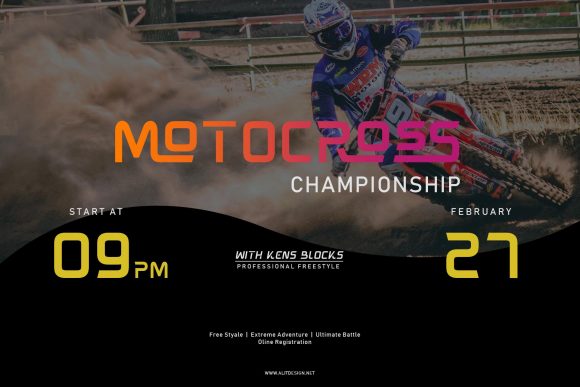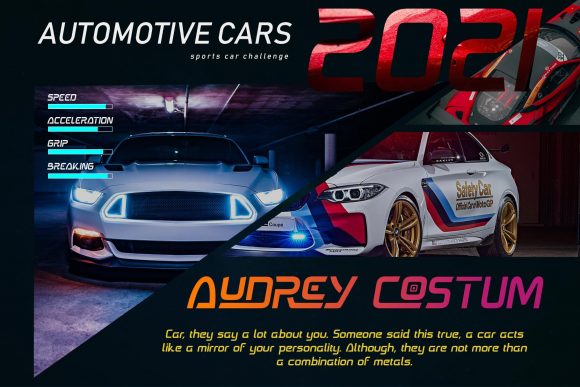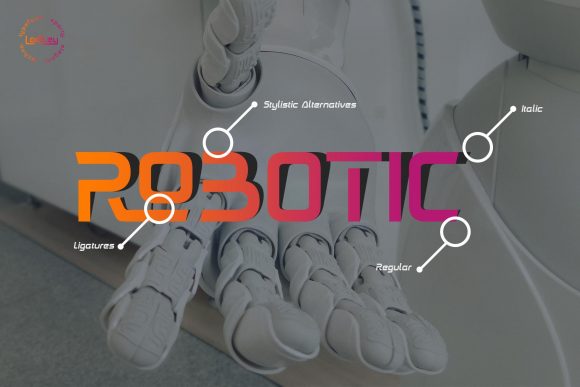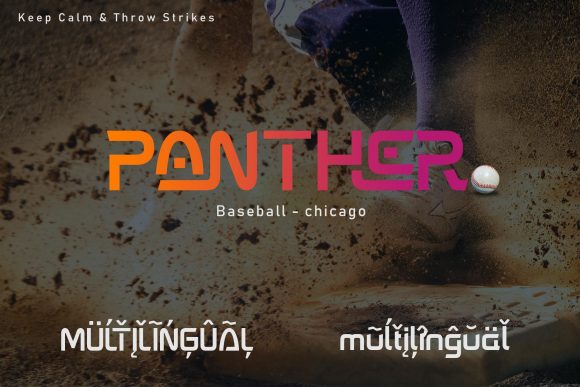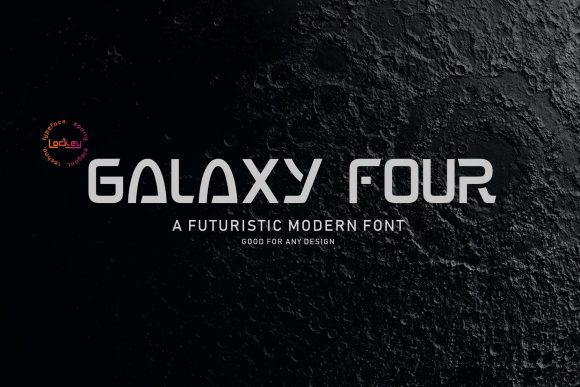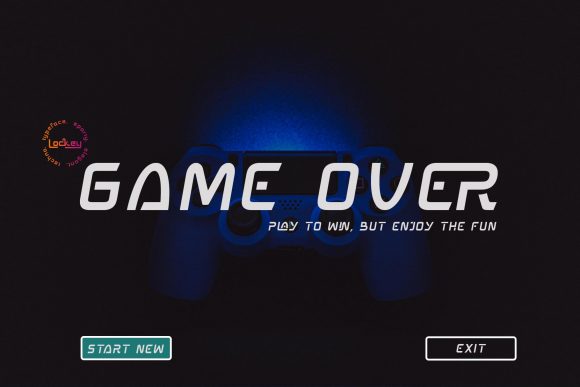
Introduction to Lockey Font
Lockey is a cool and trendy display font.
Add it to each of your techno, web related or futuristic design ideas, and you will love the results .
Lockey Font offers exceptional quality and versatility, making it a valuable addition to your design toolkit. Whether you’re creating for personal projects or commercial use, Lockey Font delivers professional results.